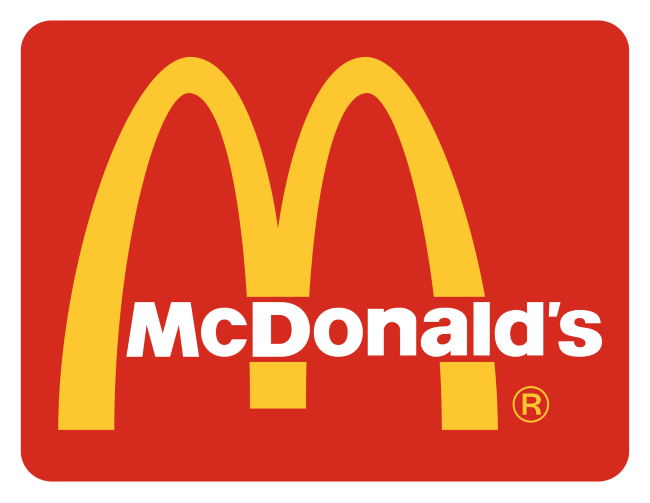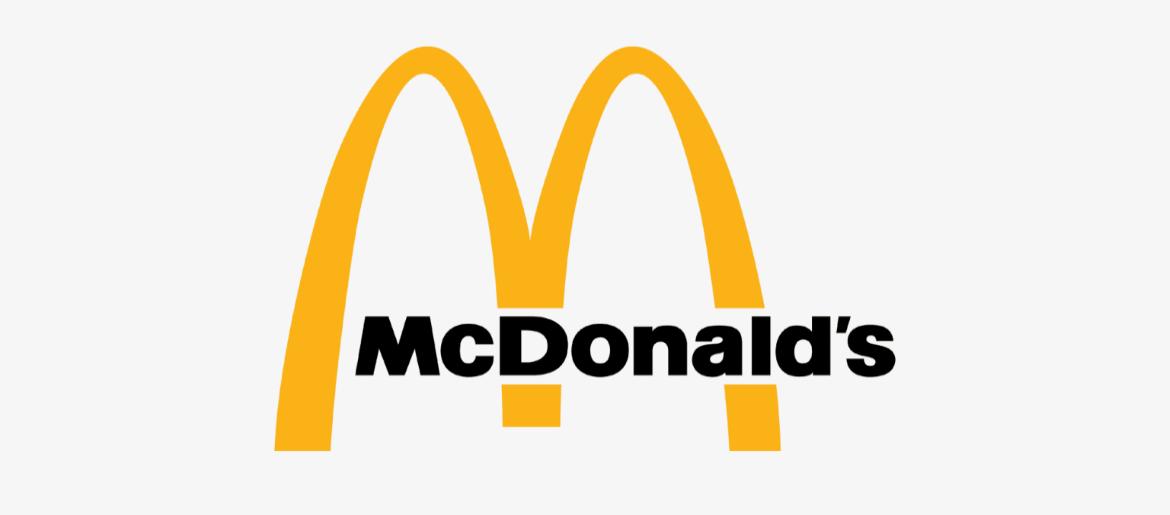
McDonalds Font
McDonalds Font has always caught attention because of how approachable and fun it feels. Every time you see the golden arches, it’s clear how much the McDonald’s logo font contributes to the brand’s global identity. The typeface feels casual yet confident, which perfectly matches the fast-food giant’s character. The well-known McDonald’s logo font is based on a custom version of McLawsuit, a typeface inspired by Helvetica Black. This choice is bold, clean, and instantly readable across signs, packaging, and advertisements, striking the right balance between simplicity and friendliness.
Compared to other fast-food brands, the McDonald’s logo font stands out because it has become a cultural icon on its own. That’s the power of consistency—when a font becomes so recognizable that people associate it with comfort, speed, and familiarity. McDonald’s Font is more than just typography; it’s a visual flavor of the brand itself.